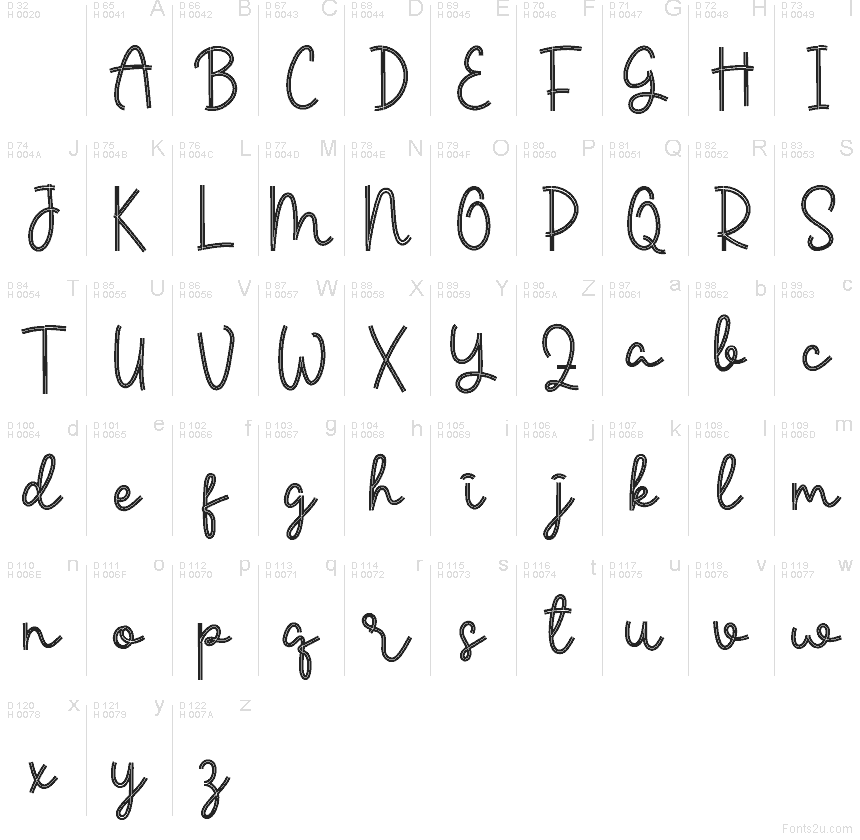
Dress Lines Demo Script
Dress Lines Script font by Noah Type is a free decorative script typeface with a playful double-line twist. Each letter feels like a loopy handwritten note traced twice, creating airy outlines that look stitched, threaded, or piped in icing. The narrow rhythm and tall, bouncy forms give it a light, whimsical presence that still reads clearly, especially at medium to large sizes.
Using Dress Lines Script adds an instant handmade charm to boutique logos, fashion tags, children’s book covers, DIY wedding stationery, and social media quotes. This free font also works beautifully on packaging for crafts, sweets, and small-batch products where you want a personal touch. Pair it with a clean sans serif for body text and let Dress Lines Script stay in the spotlight for headlines and short phrases.